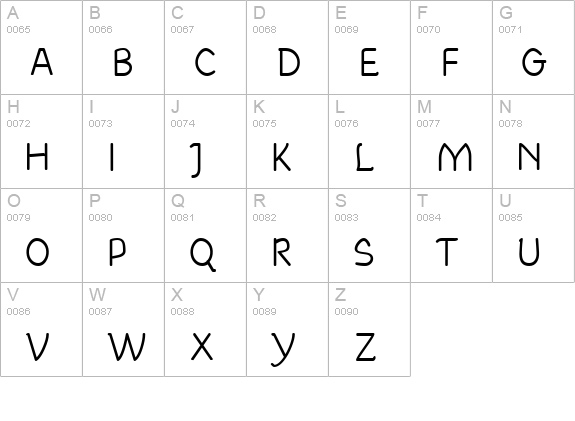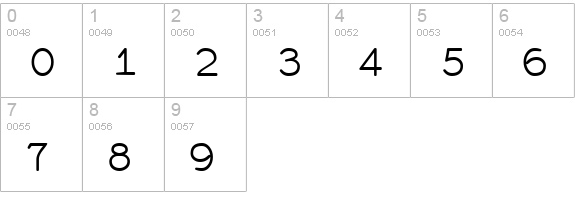
RundigPencilMedium Font Details
RundigPencilMedium font is a charming and playful typeface that brings a touch of whimsy to any design project. With its hand-drawn style and quirky details, this font is perfect for adding a fun and creative element to your work. Whether you're designing a poster, invitation, or logo, RundigPencilMedium will surely make your text stand out. The best part is that RundigPencilMedium font is completely free to download at FontsMarket.com. So go ahead and give your designs a unique and artistic flair with this delightful font today!